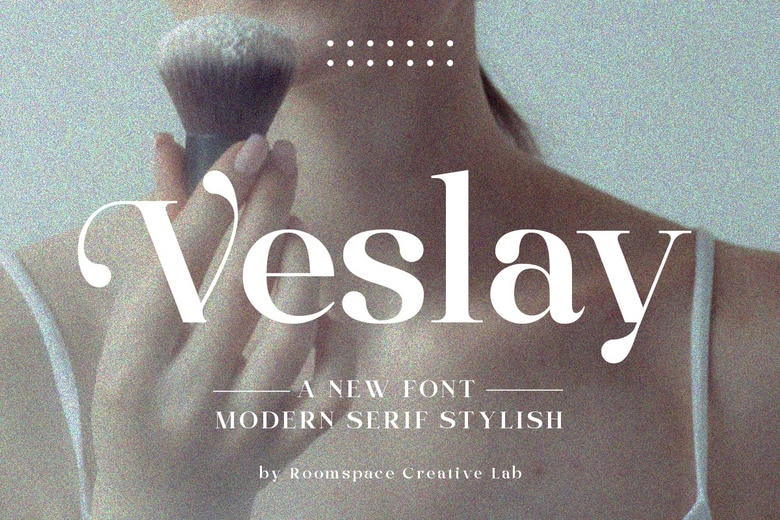
Veslay Font
Vesley is a trendy and multitasking typeface that incorporates vintage and contemporary styles. It is ideal to make classic logos, stylish branding and elegant editorial layout because it is a font that focuses on boldness with a minimalist feel on the designers, entrepreneurs and creators.
Veslay Serif Font